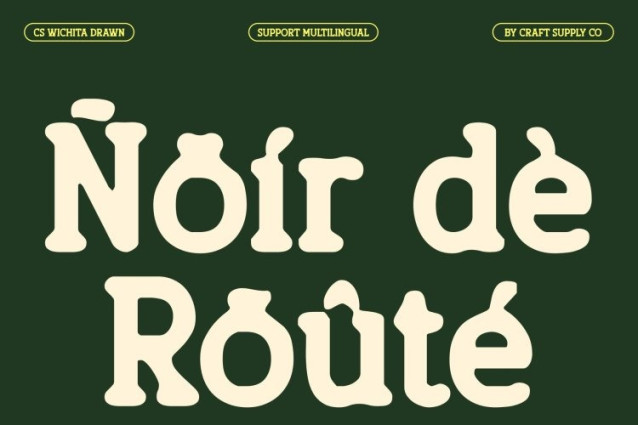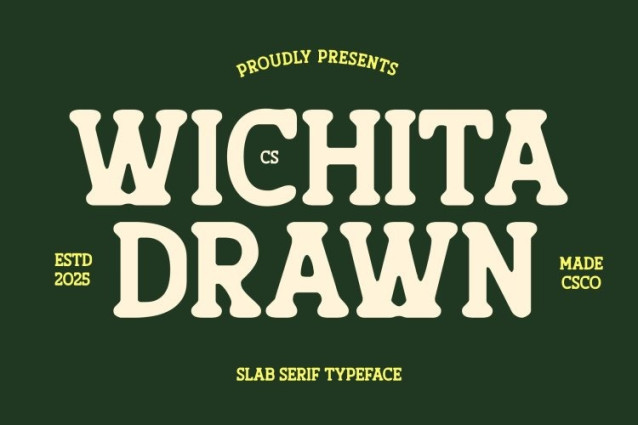
CS Wichita Drawn Font This is a modern slab serif font that combines structured, clean design with a subtle drawn effect. Its sturdy serifs and well-proportioned letterforms deliver a confident, contemporary impression, while the hand-drawn texture adds personality and uniqueness to each character. The result is a typeface that feels both professional and approachable.
Solid Construction with Distinctive Detail
Every character is crafted with precise proportions and consistent strokes, ensuring clarity and readability. The slab serifs provide stability and weight, while the drawn effect introduces subtle irregularities and handcrafted charm. This balance of order and personality makes the font visually engaging without compromising its clean, modern structure.
Timeless Yet Contemporary
This font bridges the classic foundations of slab serif typography with a modern aesthetic. Its minimal decorative approach keeps the design fresh, versatile, and long-lasting, making it suitable for creative projects that require both strength and subtle artistic flair.
Versatile for Display, Branding, and Editorial Design
Ideal for titles, posters, branding, and editorial layouts, this font ensures text remains legible and impactful across applications. The drawn details add a unique touch to every project, giving designers a reliable slab serif font that communicates clarity, modern sophistication, and handcrafted character.